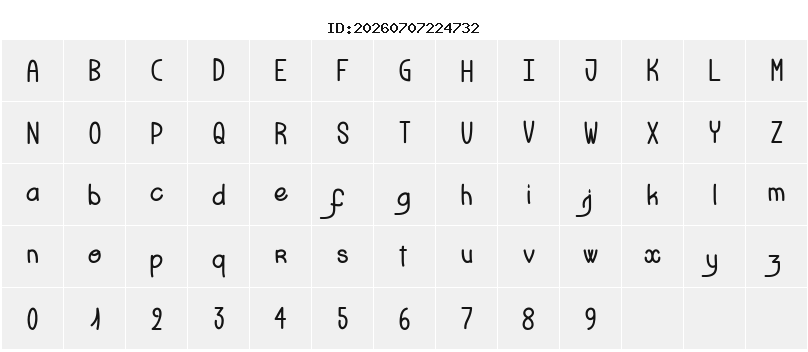
Dark is the Night Preview
• Font Name: Dark is the Night
• Full Font Name: Dark is the Night
• Designer: dcoxy Medina Gregory
• Manufacturer: dcoxy Medina Gregory
About Dark is the Night.ttf
Dark is the Night.ttf is a modern, elegant sans-serif font designed for ultimate readability and visual harmony. Perfect for branding, headlines, web design, and print materials.